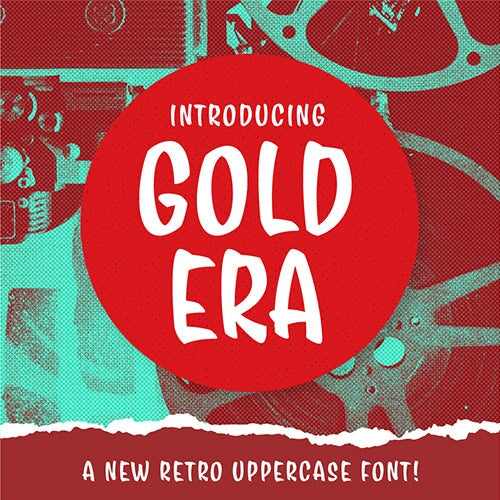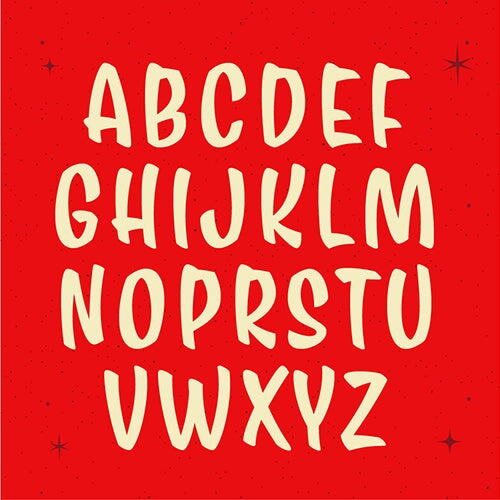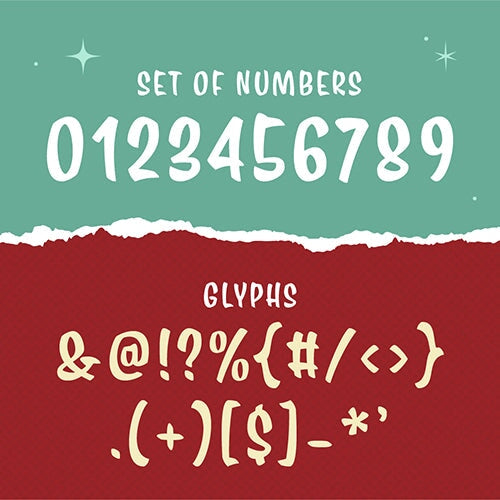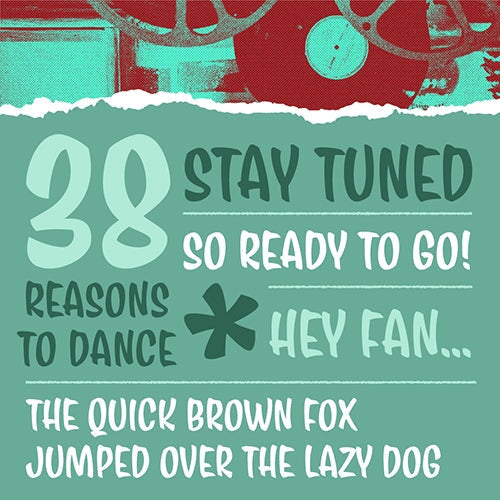
Gold Era Font (Download Only)
Guild your designs with the retro Gold Era font. This all caps font adds crisp lines and class to any artwork. Upgrade your design with a little gold leaf and take your prints back to the good 'ole days.
FEATURES
• Includes solid style
• All letters, numbers, and symbols are included